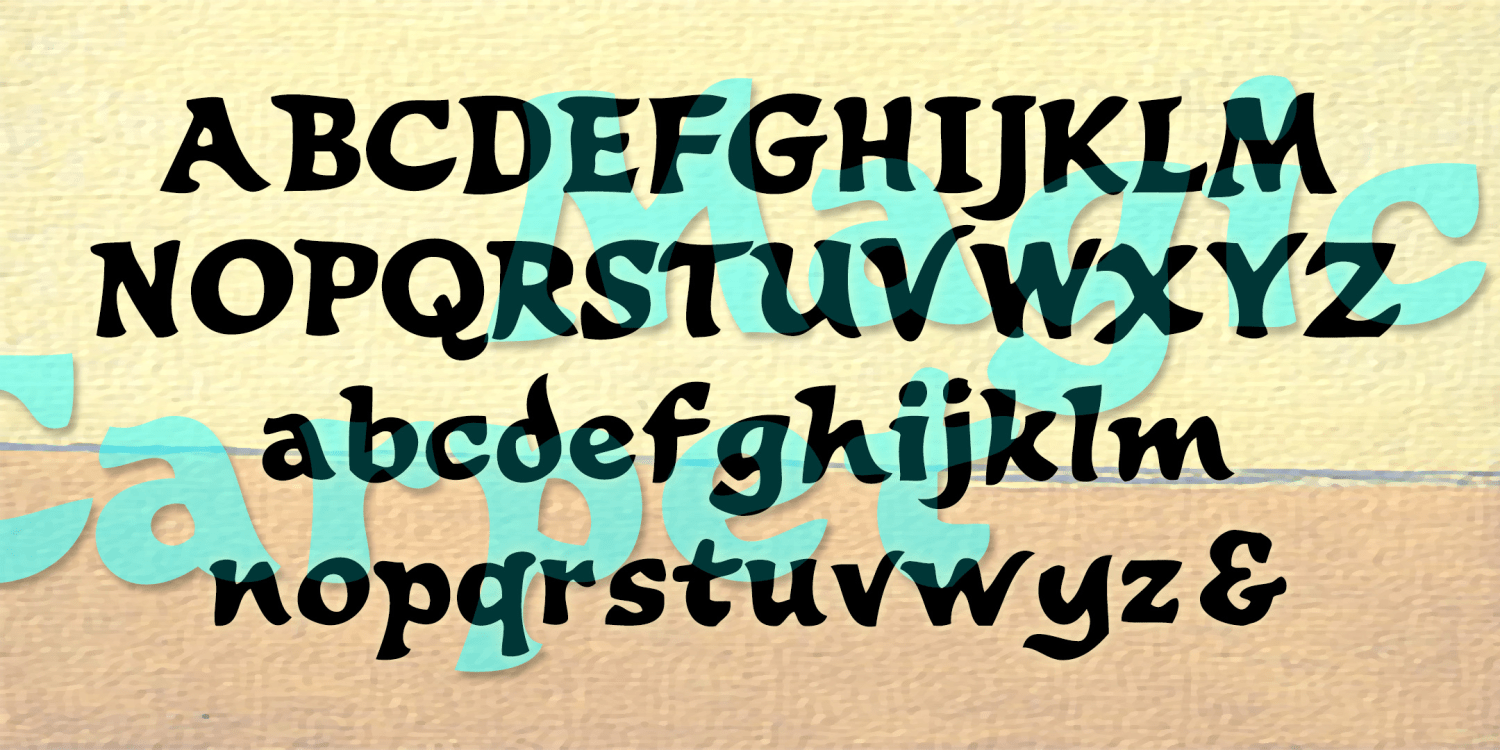
Magic Carpet
MAGIC CARPET calligraphic font with a style that's lively and brush-like, even vaguely exotic. Inspired by the hand-painted titles of the film Lust For Life (1956), a biography of the artist Vincent Van Gogh.
The Magic Carpet font family includes 220 glyphs.